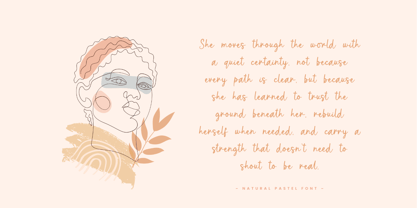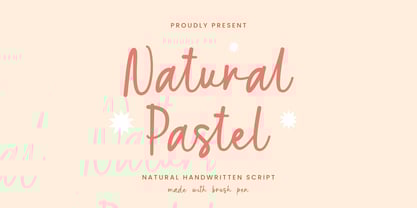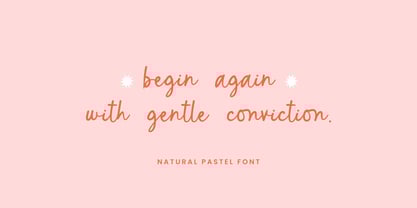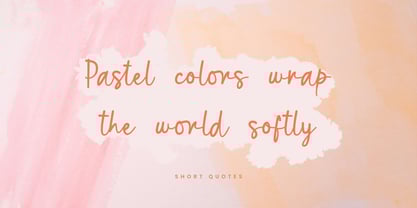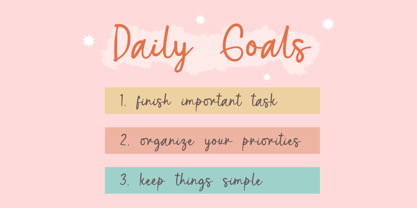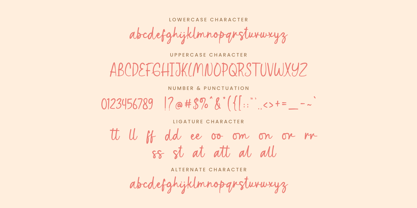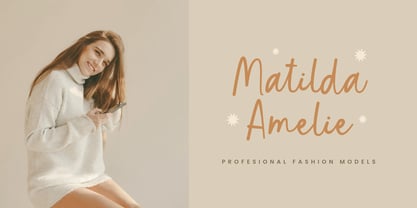
Natural Pastel
by Bluestype Studio
The Natural Pastel Font Family was designed by Jefri Dwi Alfatah and published by Bluestype Studio. Natural Pastel contains 1 styles.
Natural Pastel is a natural handwritten brush font crafted manually to deliver an authentic, organic feel in every stroke. Designed with soft textures and fluid curves, this font brings a warm, personal touch to branding, packaging, social media posts, invitations, and modern stationery projects. Its handcrafted brush style creates a relaxed yet refined aesthetic, making it ideal for designers seeking a genuine handmade look. Use Natural Pastel to create logos, quotes, headlines, merchandise, posters, and other creative content that requires a stylish and natural handwritten feel. It is the perfect choice for projects that need authenticity, softness, and a creative brush-made personality.